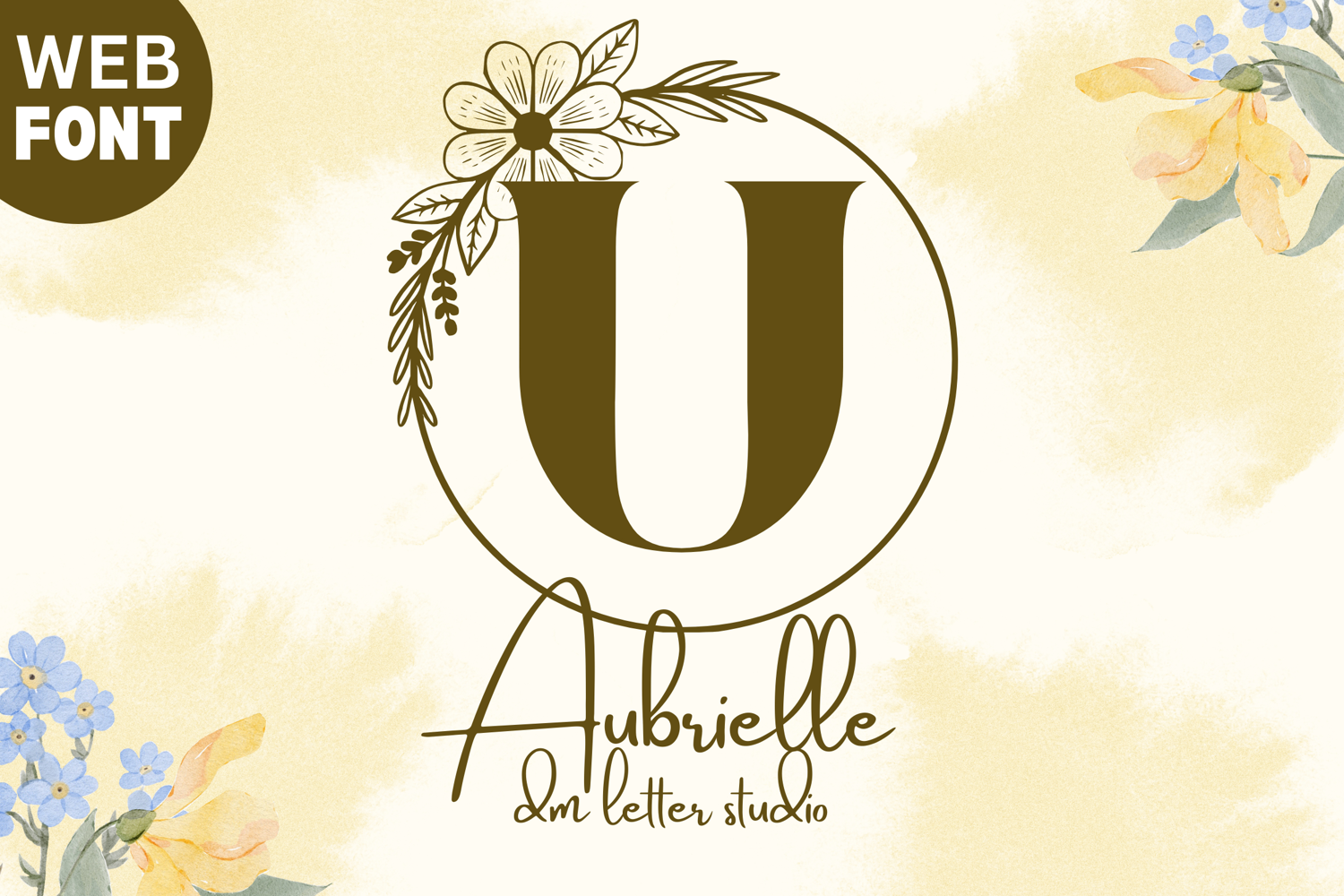
Aubrielle Monogram - Elegant Script Monogram Font
Aubrielle Monogram – Elegant Script Monogram Font
Aubrielle Monogram is a graceful and feminine script font designed specifically for monogram use. Featuring elegant, flowing strokes and timeless charm, each uppercase letter stands beautifully on its own or paired as luxurious initials. Perfect for wedding branding, signature logos, invitations, and high-end personalized gifts, Aubrielle Monogram brings classic beauty and soft sophistication to every design.
• Monogram-Focused Script: Flowing uppercase script letters ideal for elegant initials and typographic statements.
• Graceful Flourishes: Smooth, calligraphic curves add softness and romantic appeal.
• High-End Look: Perfect balance of readability and artistry for upscale designs.
• Ideal For: Wedding monograms, signature logos, luxury packaging, name-based branding, custom stationery, and feminine designs.